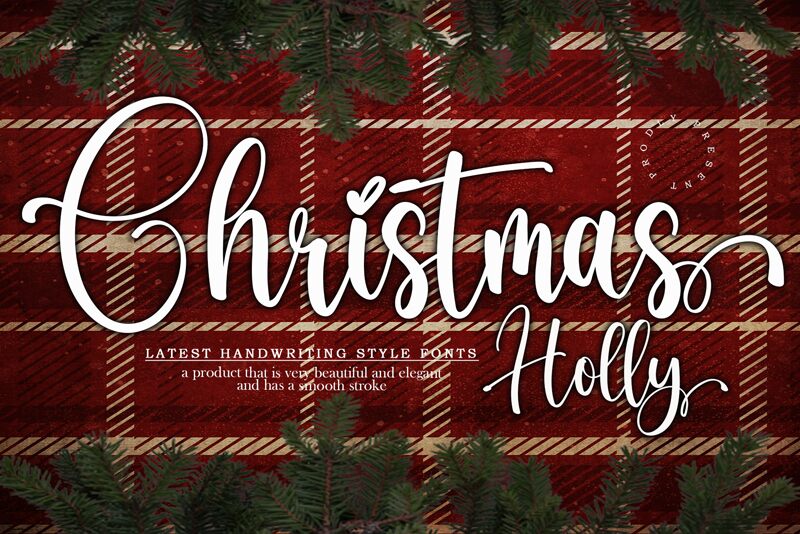
Christmas Holly font
Christmas Holly
This font boasts a classy calligraphic influence while maintaining a contemporary and fresh appeal. Its versatility makes it ideal for a wide array of creative projects, from letterheads and titles to stationery designs.